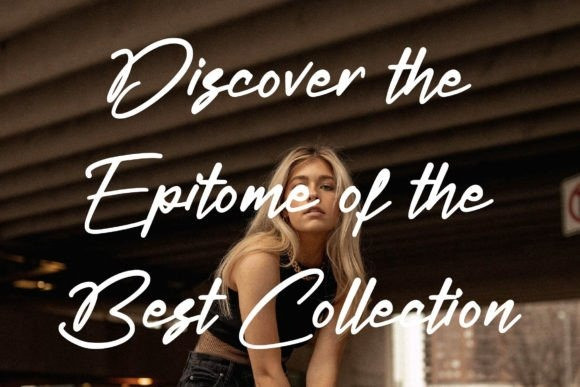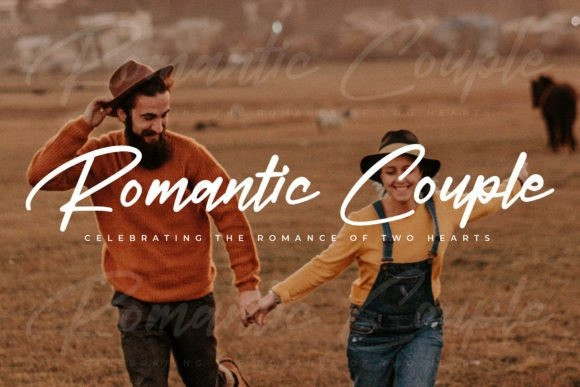
Hursttom Randolph Font
Hursttom Randolph Font is an elegant script font from Glorytype Studio, suitable for a variety of projects such as logos, branding projects, homeware designs, product packaging, mugs, quotes, posters, shopping bags, t-shirts, book covers, name card, invitation cards, greeting cards, label, photography, watermark, special events, and all your other lovely projects that need a beautiful script taste.